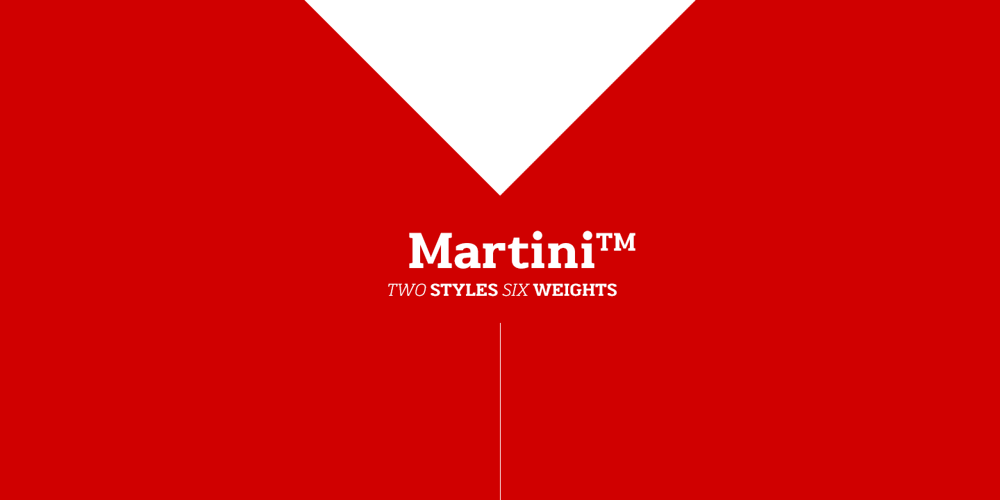
Martini Font Family was designed by Kwanchai Akkaratammagul and published by Katatrad. Martini contains 12 styles and family package options. Martini™ typeface is a slab-serif based typeface that included six weights, two styles from ExtraLight to Black with advance typographical support with features such as discretionary ligatures and alternate characters.